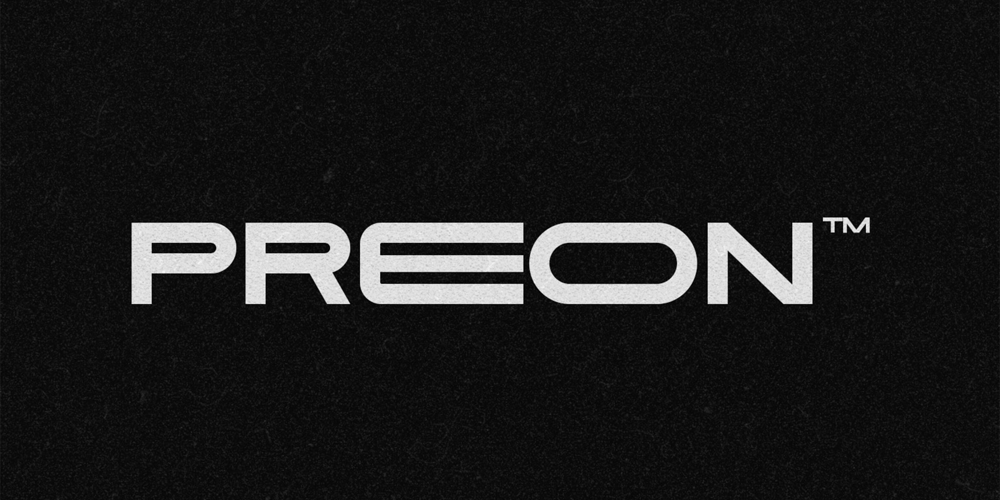
Preon Font Family was designed by Ideal Eksis and published by Idealeksis Studio. Preon contains 1 styles and family package options. “Preon” is a sleek and modern sans serif display font with a futuristic edge. Its clean lines and geometric shapes convey a sense of innovation and progress, making it an ideal choice for contemporary design projects that require a touch of sophistication. The font’s unembellished appearance is balanced by subtle curves, giving it a friendly yet professional demeanor. Perfect for tech startups, digital marketing, and creative media, “Preon” is designed to capture attention and make a bold statement in any visual communication. Whether used for headlines, logos, or user interfaces, this font embodies the spirit of the future while remaining versatile and readable.